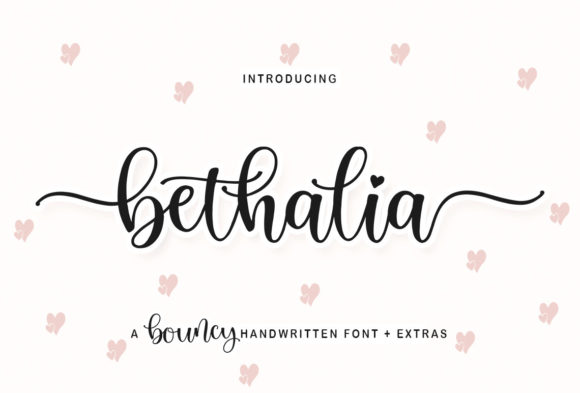
Unveil the Enchanting World of Bethalia Font: Where Elegance Meets Imagination
Surrender to the allure of Bethalia Font, a script typeface that weaves a tapestry of romance and charm into your creative endeavors. Its characters, like graceful dancers, pirouette along the baseline, adding a touch of luxury and sophistication to every design project. Immerse yourself in the world of Bethalia, where elegance and imagination intertwine.
Bethalia's fluid strokes and delicate curves evoke a sense of nostalgia, reminiscent of vintage love letters penned with heartfelt emotions. Let your designs exude timeless beauty and heartfelt charm as Bethalia's characters dance across your projects, leaving a trail of enchantment in their wake.
Designed with meticulous attention to detail, Bethalia features a comprehensive collection of glyphs and ligatures, effortlessly accessible through PUA encoding. Unleash your creativity as you explore the endless possibilities, crafting designs that resonate with elegance and captivate your audience.
Bethalia's versatility shines through its ability to effortlessly adapt to a myriad of design projects. Whether you're crafting wedding invitations that exude romance, designing logos that radiate sophistication, or creating social media posts that demand attention, Bethalia seamlessly elevates your vision, transforming ordinary designs into extraordinary masterpieces.
Indulge in the charm of Bethalia Font, a script typeface that captures the essence of timeless elegance, playful romance, and boundless creativity. Let your designs blossom with beauty and captivate your audience with every stroke. Embrace the allure of Bethalia and embark on a creative journey that knows no bounds!